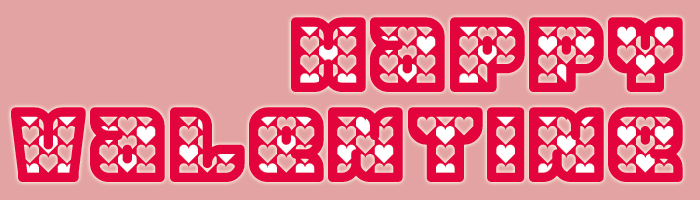
Happy Valentine
Happy Valentine's Day, Lovecompstructors!
How lovely! This attractive font and your kind thought :) Happy Valentine's day to you, too
This is very pretty. 10/10+a heart :)
this one is so cute. great job!